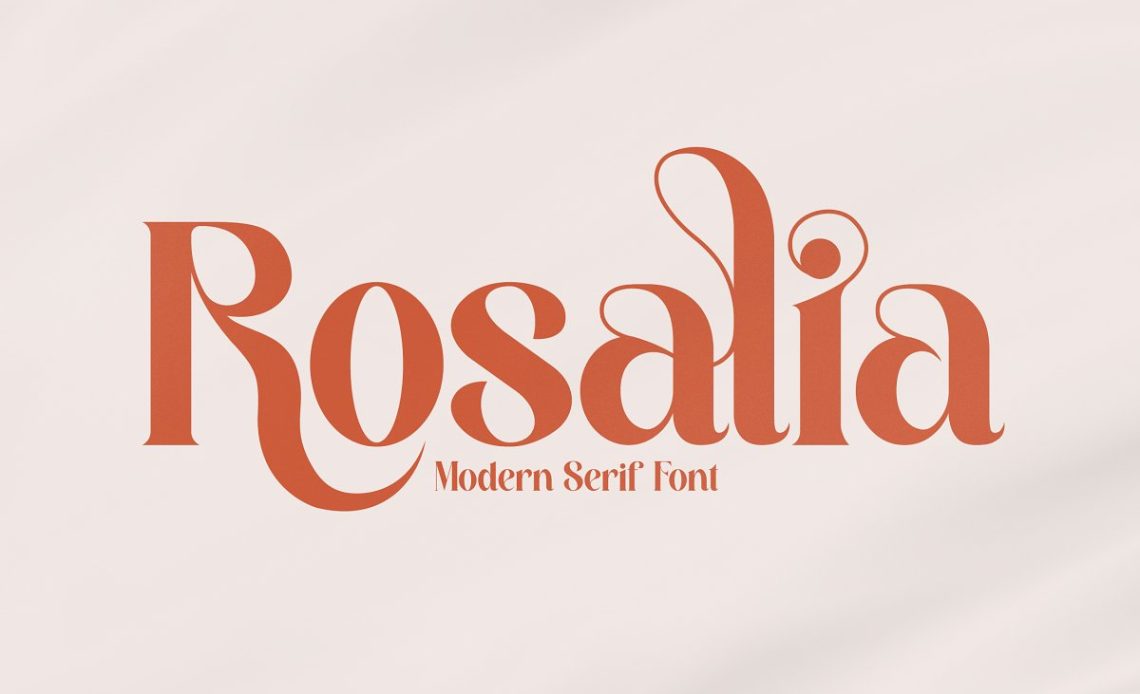
Introducing Rosalia Modern Serif Font, the newest addition to the Storytype Studio's Mega Bundle of over 100 modern and minimalist serif fonts. Created by talented font designer Rena Marliana, Rosalia is a serif modern and classic typeface that boasts a unique style and modern look.
Perfect for those who crave an elegant and luxurious aesthetic, Rosalia is ideal for creating stunning logos, book or movie title designs, fashion brands, magazines, clothing, lettering, quotes, and so much more. This versatile font is designed to elevate any project it's used in, adding an instant touch of sophistication and class.
One of the standout features of Rosalia is its extensive range of features. Available in TTF, OTF, and WOFF formats, it includes both uppercase and lowercase characters, numerals, punctuations (OpenType Standard), accents (Multilingual Characters), ligatures, and alternative style stylistic sets. This means that you have all the tools you need to create truly unique designs that stand out from the crowd.